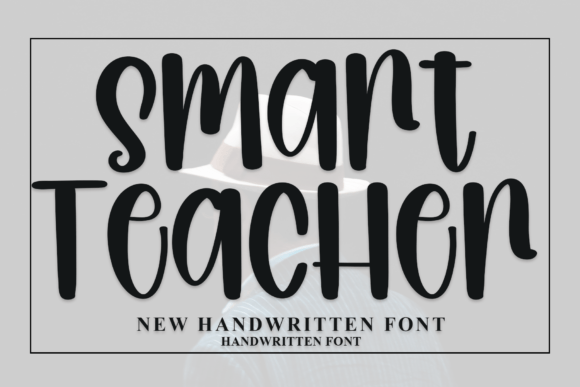
Introducing Smart Teacher Font - A Handcrafted Masterpiece for Educational Excellence!
Step into a world of elegance and sophistication with Smart Teacher Font, a script font that exudes charm and professionalism. Inspired by timeless calligraphy, this font is a marvel of contemporary design, striking a perfect balance between classic and modern aesthetics. Its impeccable form and stylish handwritten strokes create a visual symphony that commands attention.
Designed with educators in mind, Smart Teacher Font is the ultimate tool for creating unforgettable educational materials, lesson plans, presentations, and certificates. Its carefully crafted characters dance across the page, captivating students and leaving a lasting impression. With Smart Teacher Font, your educational content will shine with an air of authority and inspiration.
But this font's allure extends far beyond the classroom. Its versatility makes it a versatile choice for any designer seeking to add a touch of elegance to their projects. Whether you're creating marketing materials, invitations, social media posts, or personal projects, Smart Teacher Font will elevate your designs to new heights.
With its PUA encoding, Smart Teacher Font unlocks a world of creative possibilities. Access a treasure trove of amazing glyphs and ligatures with ease, allowing you to add intricate details and flourishes to your designs. Experiment with different combinations to create unique and eye-catching compositions that will leave your audience spellbound.